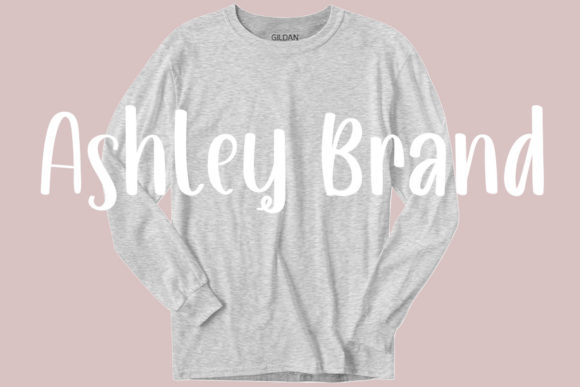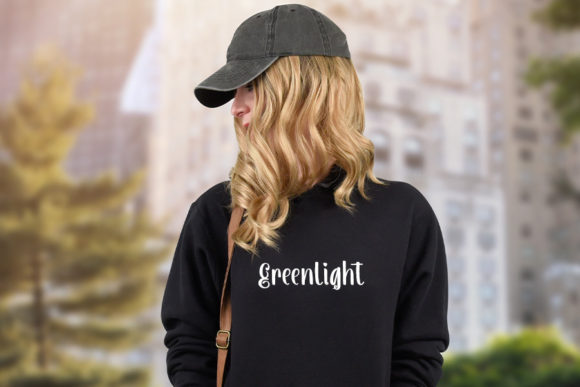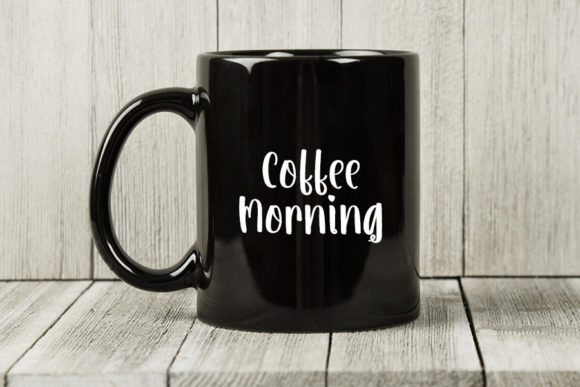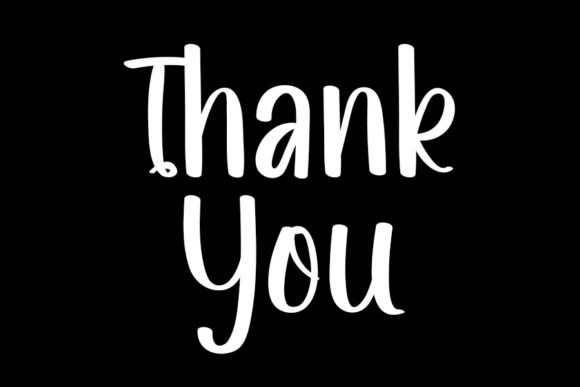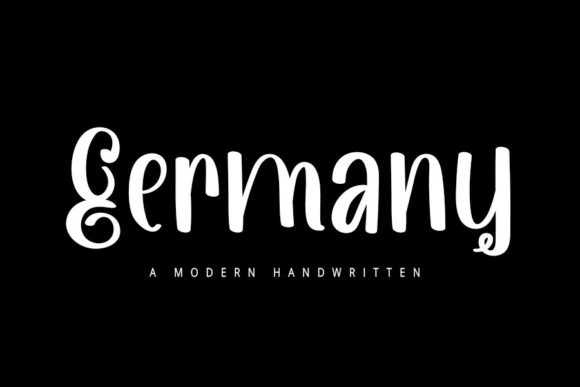
Discover the Elegance of Germany Font: A Chic Script Font for Your Creative Projects
In the world of typography, a font can make or break the visual appeal of a design project. For designers and crafters looking for a stylish and versatile script font, Germany Font is an excellent choice. This chic font exudes confidence and sophistication, making it perfect for a wide range of creative endeavors. In this article, we’ll explore the features and benefits of Germany Font, and why it’s a great addition to your typography collection.
What is Germany Font?
Germany Font is a modern script font designed to make a statement. Its elegant and flowing lines evoke a sense of luxury and refinement, making it ideal for high-end branding, advertising, and editorial projects. The font’s versatility is evident in its stylish alternates and ligatures, which allow designers to add a personal touch to their work.
Key Features of Germany Font
- Stylish Alternates: Germany Font comes with a range of stylish alternates that allow designers to mix and match different letterforms to create a unique look.
- Ligatures: The font features a range of ligatures that seamlessly connect letters, creating a smooth and flowing script.
- Versatility: Germany Font is suitable for a wide range of projects, from branding and advertising to editorial and packaging design.
- Elegant Lines: The font’s elegant lines and curves make it perfect for designs that require a touch of sophistication.
Benefits of Using Germany Font
Germany Font offers several benefits to designers and crafters, including:
- Time-Saving: With its extensive range of alternates and ligatures, Germany Font saves designers time and effort in creating custom typography.
- Consistency: The font’s consistent style and elegant lines ensure that designs look professional and cohesive.
- Creativity: Germany Font’s versatility and range of features inspire creativity and experimentation, allowing designers to push the boundaries of their work.
Who Can Benefit from Germany Font?
Germany Font is an excellent choice for a range of designers and crafters, including:
- Graphic Designers: Germany Font is perfect for graphic designers looking for a stylish and versatile script font for branding, advertising, and editorial projects.
- Packaging Designers: The font’s elegant lines and curves make it suitable for packaging design, particularly for luxury brands.
- Stationery Designers: Germany Font is ideal for stationery designers looking for a sophisticated script font for business cards, letterheads, and other stationery materials.
- Crafters: Crafters and DIY enthusiasts can use Germany Font to add a touch of elegance to their handmade projects, such as wedding invitations, scrapbooking, and card making.
Tips for Using Germany Font
To get the most out of Germany Font, follow these tips:
- Experiment with Alternates: Take advantage of the font’s stylish alternates to create a unique look that reflects your brand or design style.
- Use Ligatures: Use ligatures to create a seamless and flowing script that adds elegance to your design.
- Mix and Match: Experiment with different font sizes, colors, and styles to create visual interest and hierarchy in your design.
Germany Font is a chic and trendy script font that offers a range of features and benefits for designers and crafters. Its stylish alternates, ligatures, and elegant lines make it perfect for a wide range of creative projects. Whether you’re a graphic designer, packaging designer, stationery designer, or crafter, Germany Font is an excellent addition to your typography collection. With its versatility, sophistication, and elegance, Germany Font is sure to elevate your designs to the next level.